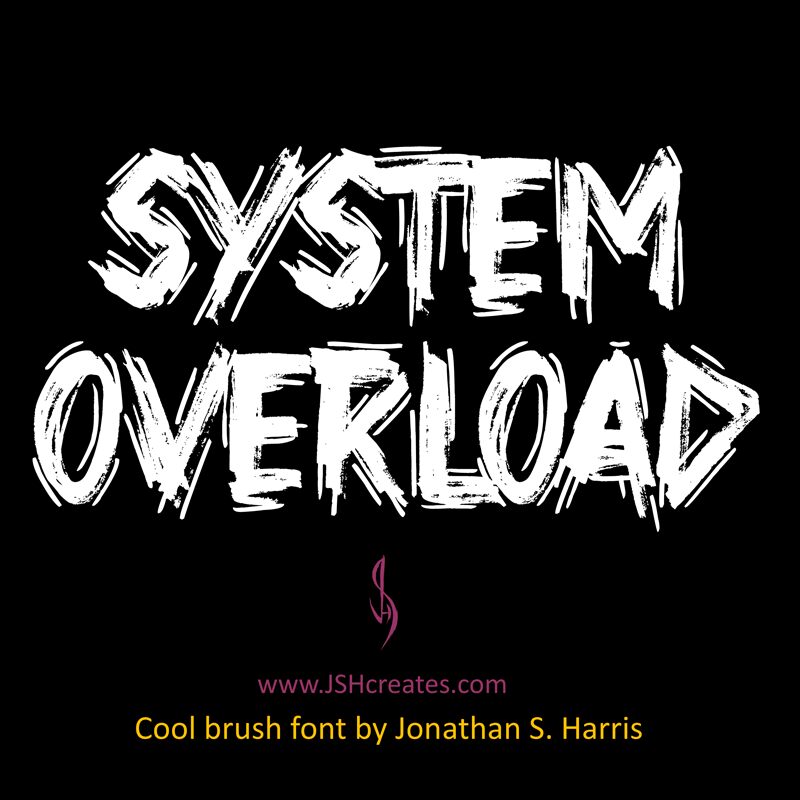
System Overload, crafted by JSH creates, is a captivating script font that exudes an edgy and rebellious vibe. Its trash-inspired style combined with a dry brush texture adds a touch of grit and authenticity to any design project.
This bold typeface injects energy into album covers, streetwear logos, and tattoo designs, while also making a statement in movie titles and book covers. With System Overload, your creative endeavors will possess an unruly charm that stands out from the crowd.